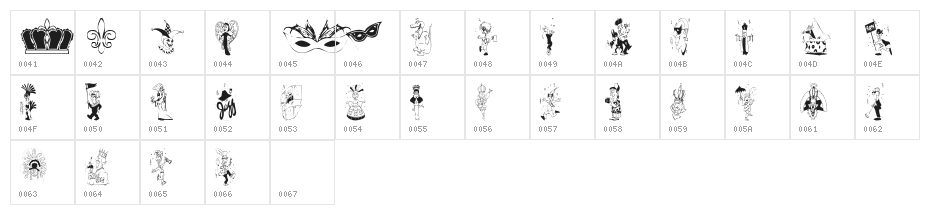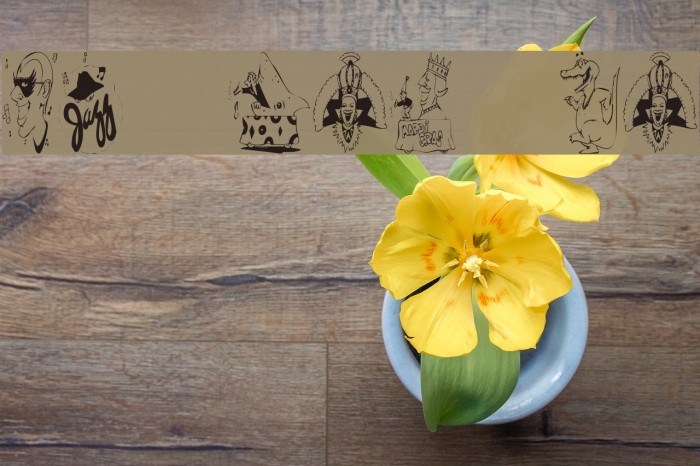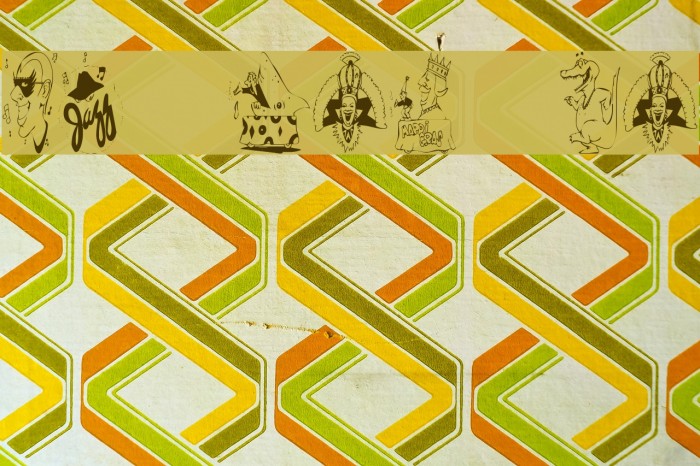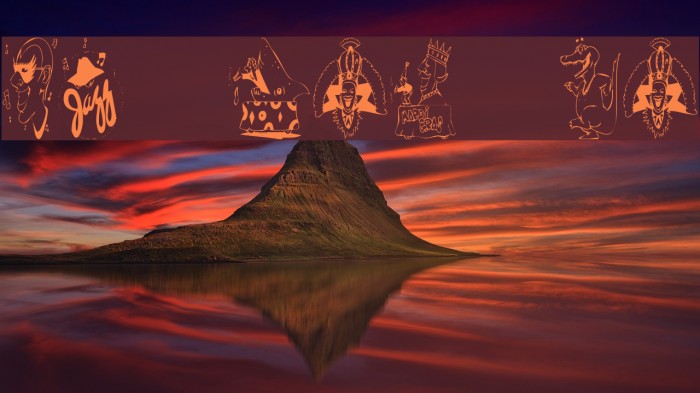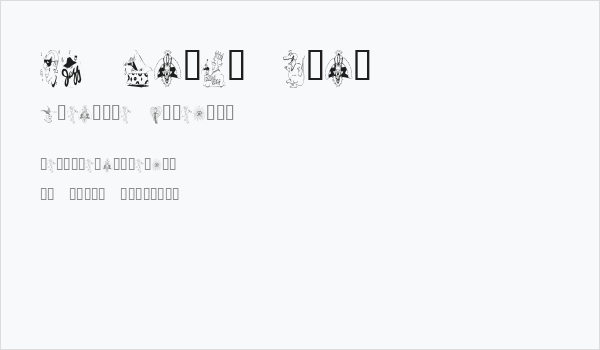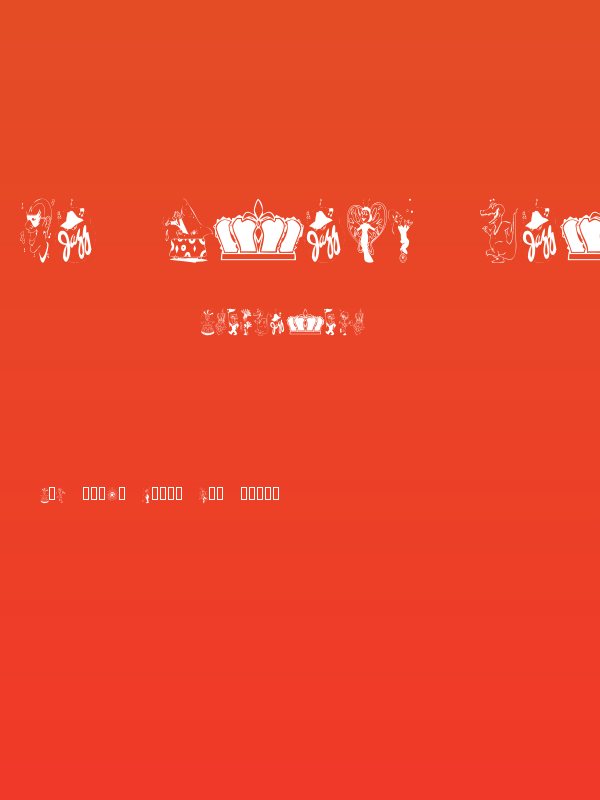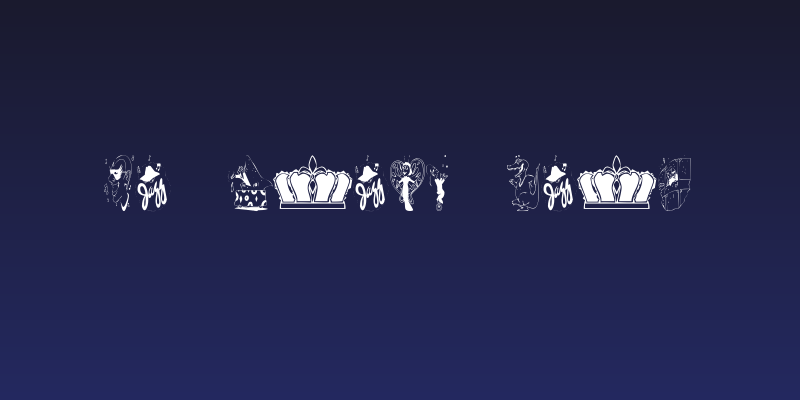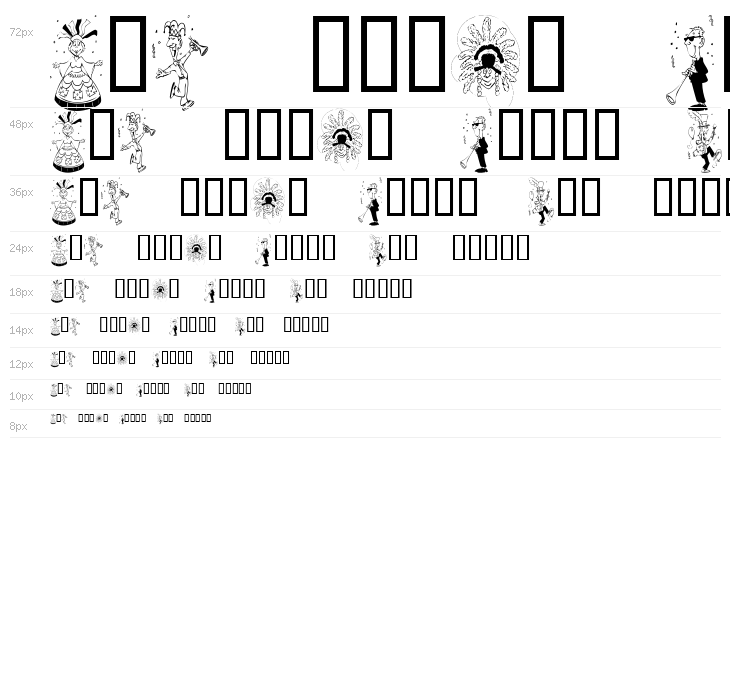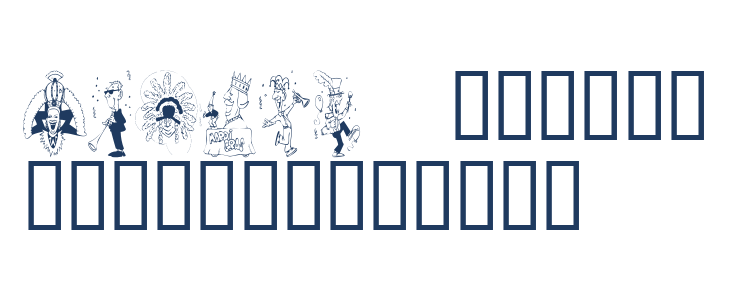
KR Mardi Gras Font
KR Mardi Gras Description
A decorative dingbat font featuring detailed illustrations related to Mardi Gras, including crowns, masks, jesters, dancers, and festive characters. Each glyph is a unique, playful drawing rather than a standard letterform.
| Overall Style | Decorative, Festive, Playful |
| Use Case | Decorative elements, Themed graphics, Event materials |
| Proposed Projects | Party invitations, event posters, themed decorations, scrapbooking, and festive graphic design. |